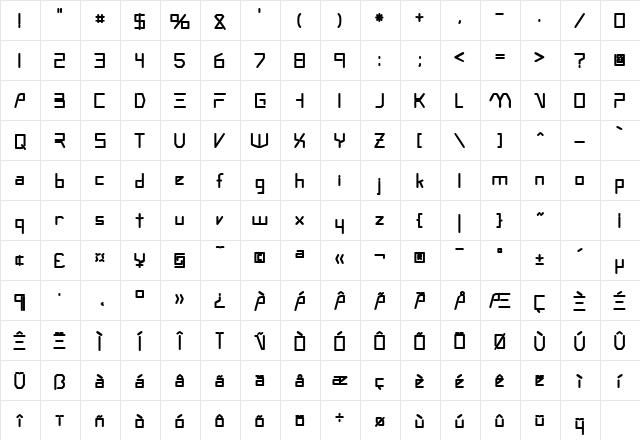
OscilloSSK Bold
Design Context for OscilloSSK Typeface
OscilloSSK is a composed and adaptable typeface that performs quietly and consistently across a wide range of design contexts. The heavy weight commands attention and anchors typographic hierarchies.
Pro Tip: Pair OscilloSSK with a font of contrasting weight or personality to build a more expressive typographic hierarchy.